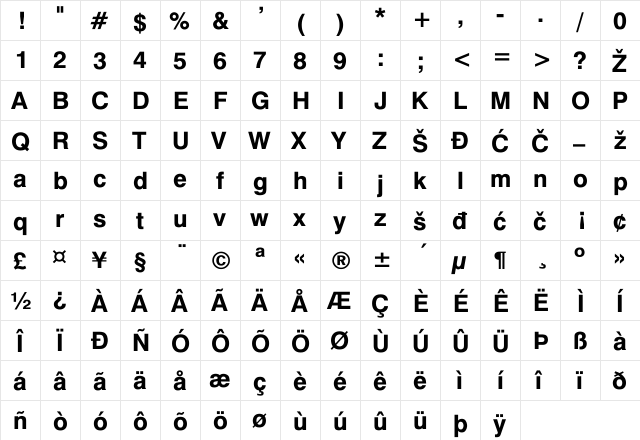
SL Swiss Bold
Design Context for SL Swiss Typeface
SL Swiss takes a measured approach to typography — its balanced proportions and neutral character make it a reliable workhorse for both digital and print work. Its bold stroke weight gives it real presence on the page.